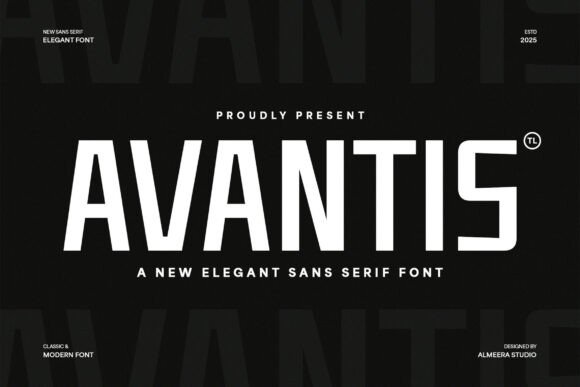
Discover the Elegance of Avantis Font: A Modern Sans Serif for Creative Projects
I still remember the frustration of working on a high-stakes branding project, only to hit a roadblock when searching for the perfect font. My client wanted a typeface that exuded sophistication, yet felt approachable and modern. After hours of scouring font libraries, I stumbled upon Avantis – a game-changing sans serif font that flawlessly merged classic appeal with a contemporary aesthetic. In this article, I’ll share my experience with Avantis, its features, and how to make the most of this versatile font in your creative projects.
First Impressions: What I Love About Avantis
Avantis has quickly become a go-to font in my design arsenal, and for good reason. Here are a few aspects that I absolutely love:
• ✨ Exceptional Readability: Avantis boasts clean lines and balanced proportions, making it perfect for a wide range of applications, from digital advertising to magazine layouts.
• ✅ Understated Elegance: This font provides a polished and professional look, elevating any creative project with its refined and sophisticated touch.
• 💼 Versatility: Avantis is suitable for branding, corporate identity, and various design projects where clarity meets contemporary style.
While Avantis has won me over, there are a few minor limitations to keep in mind:
• 🤔 Limited Extras: Avantis doesn’t come with an extensive range of extras, such as intricate illustrations or icons. However, its focus on typography ensures that it excels in its core purpose.
• ⚠️ Overuse of Stylistic Alternates: With great power comes great responsibility! Be mindful of overusing stylistic alternates, as this can detract from the font’s overall elegance.
The Story Behind Avantis: Designer Inspiration
Avantis was designed with the goal of creating a typeface that embodies both timelessness and modernity. Inspired by the clean lines of classic sans serif fonts and the versatility of contemporary designs, Avantis aims to provide a polished and professional look for a wide range of creative projects. While the actual designer behind Avantis remains anonymous, their vision for a sophisticated and elegant font has certainly resonated with designers worldwide.
What makes Avantis suitable for branding and corporate identity? Avantis’s clean lines, balanced proportions, and understated elegance make it perfect for creating a professional and polished brand image.
Can I use Avantis for digital advertising? Absolutely! Avantis’s exceptional readability and modern aesthetic make it an excellent choice for digital advertising, where clarity and style are crucial.
Avantis is a powerful addition to any designer’s toolkit, offering a perfect blend of classic appeal and modern style. With its exceptional readability, understated elegance, and versatility, Avantis is sure to elevate your creative projects and provide a polished, professional look.